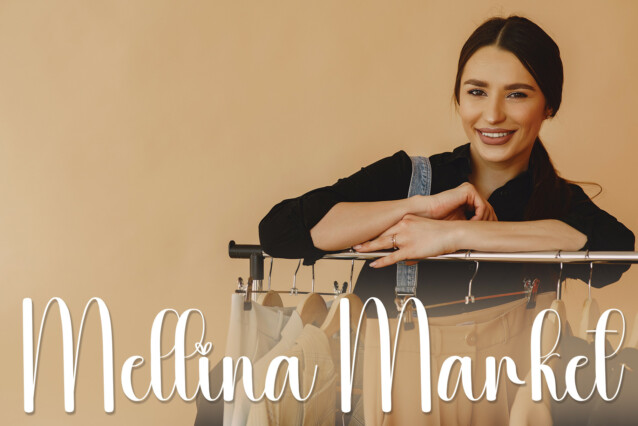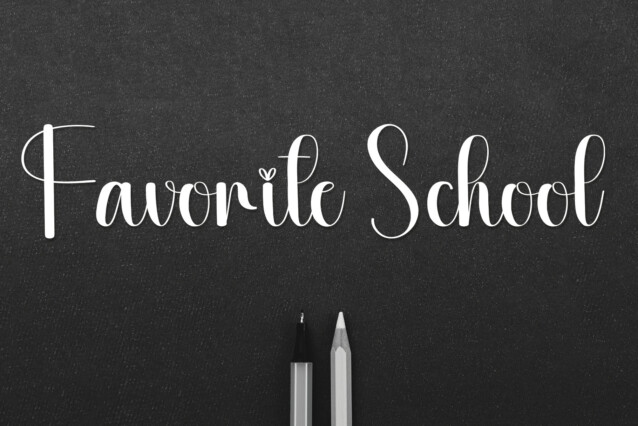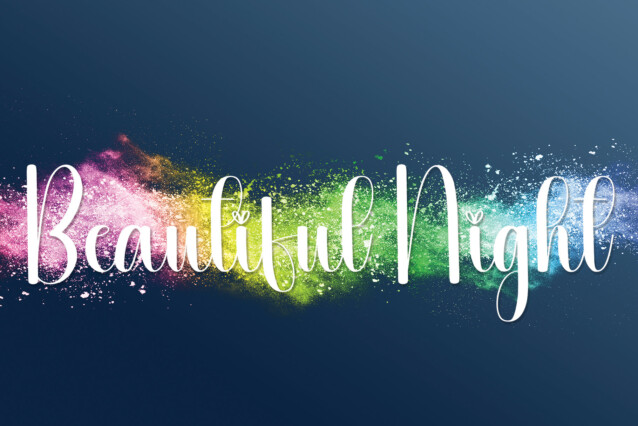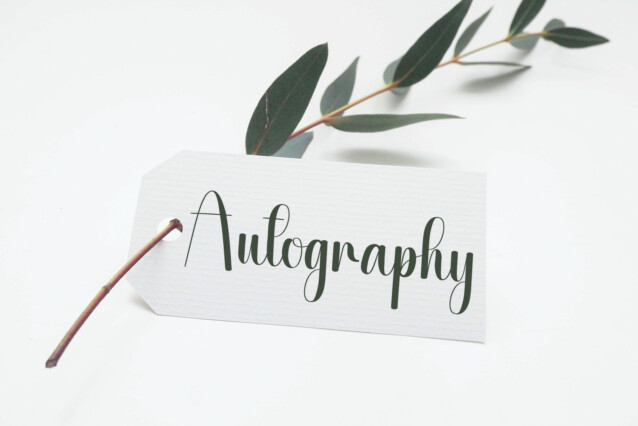
Template Script Font
Template Script Font is a sweet and friendly handwritten font. Cute and fun, this font is ideal for writing wedding invitations, cards, or any other design that might need a fun touch!